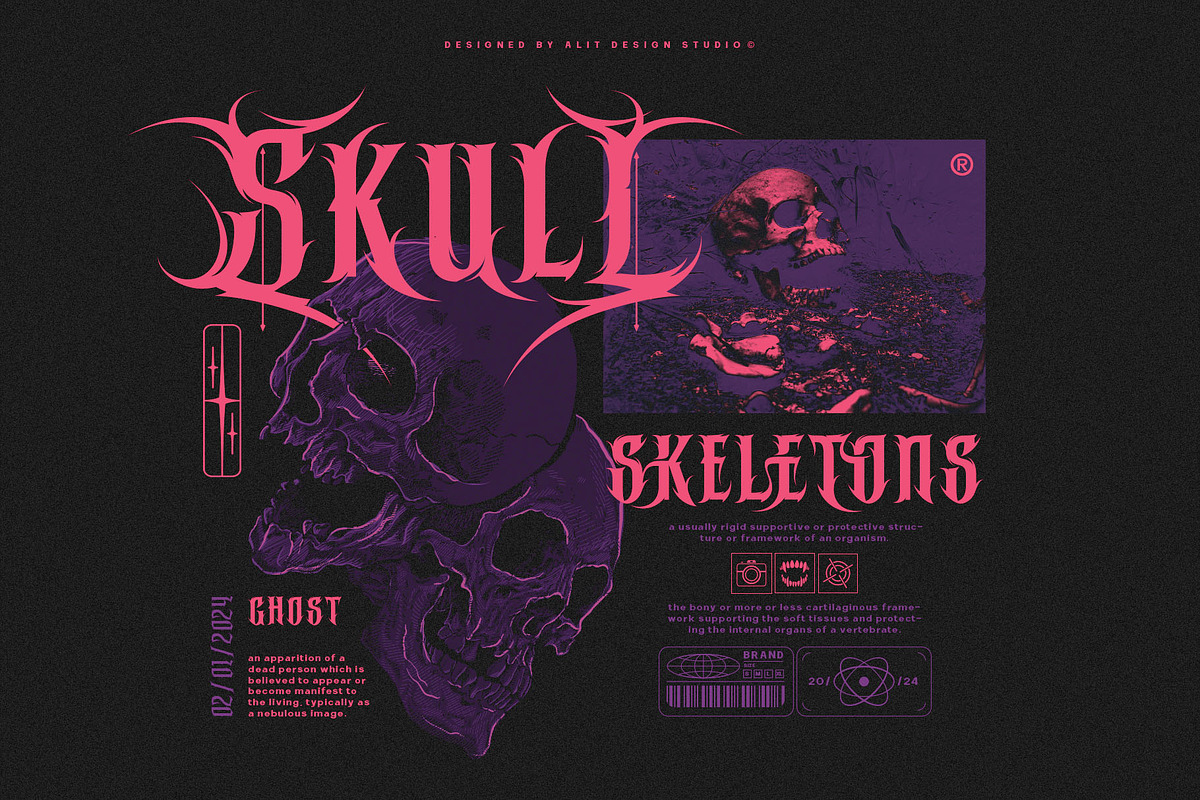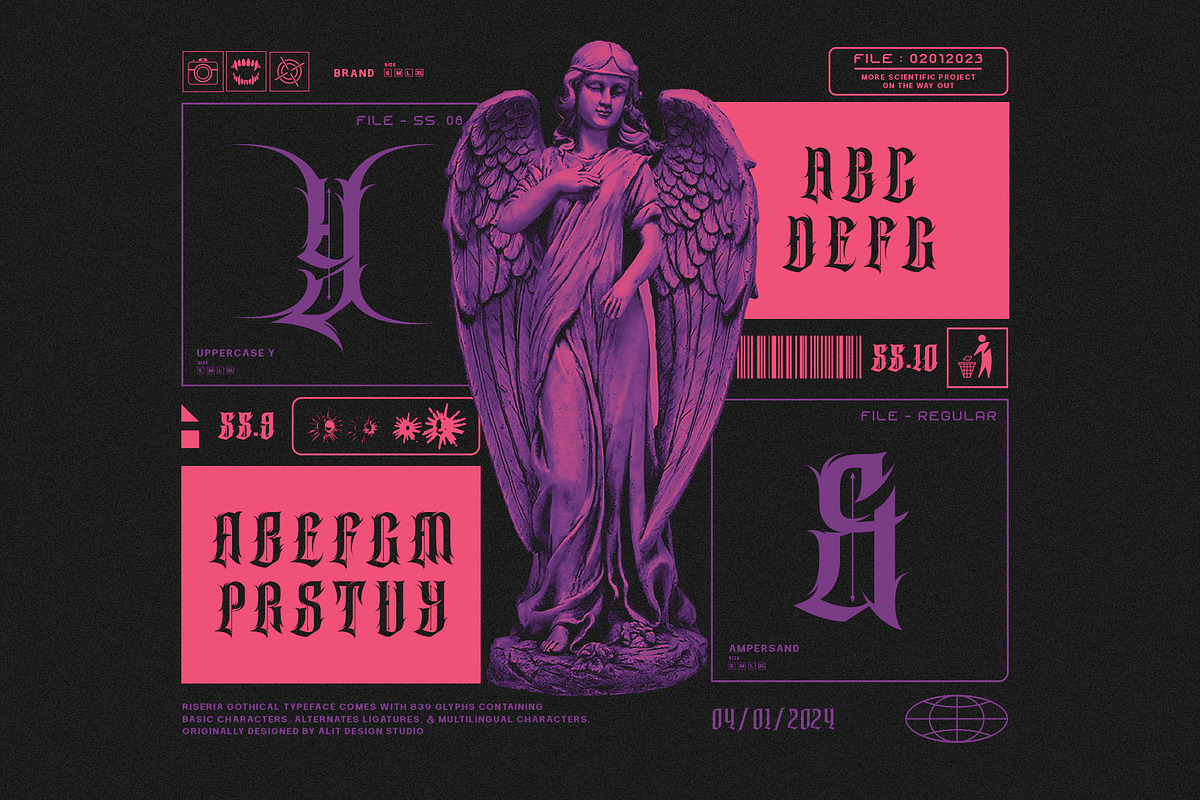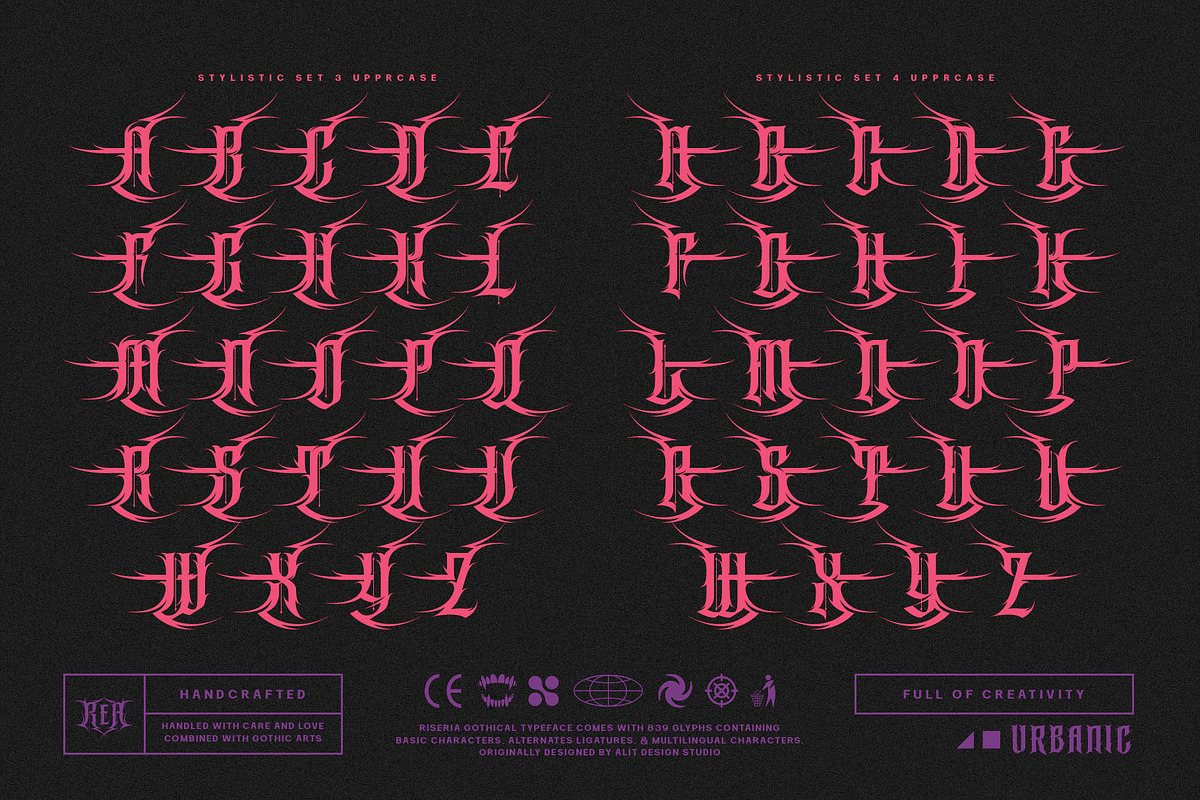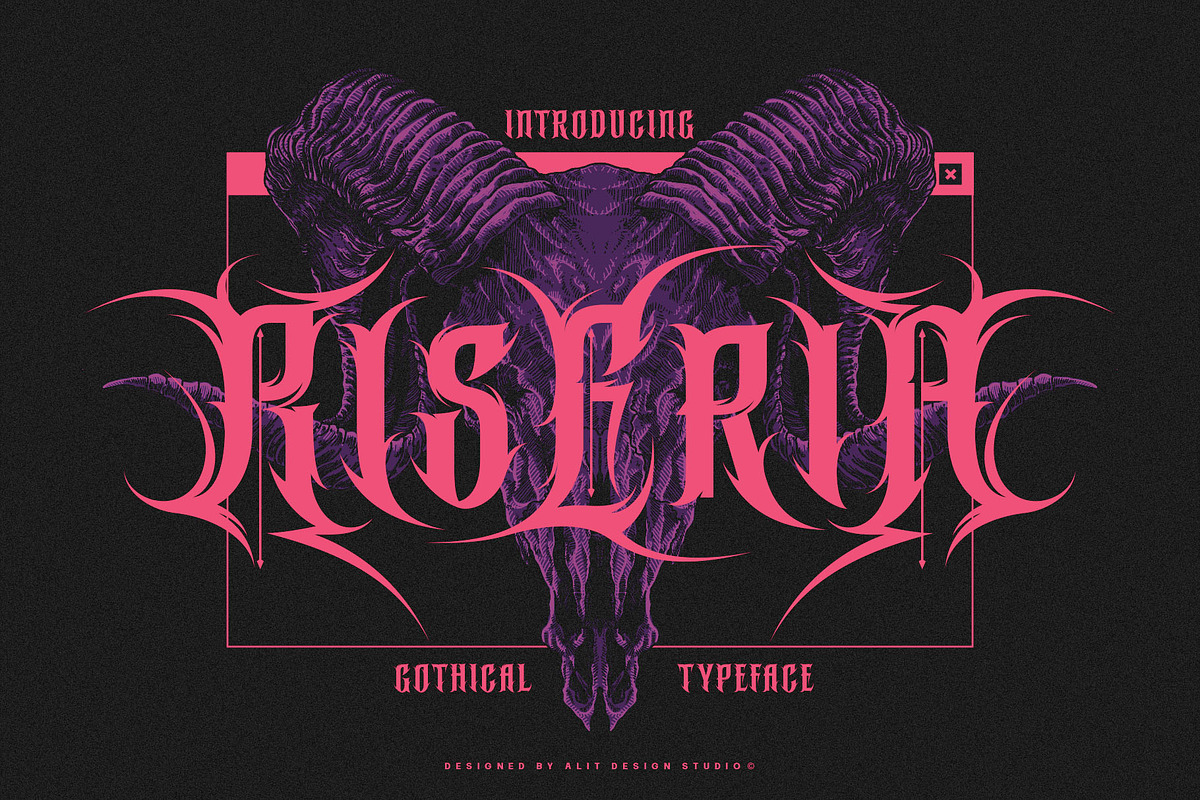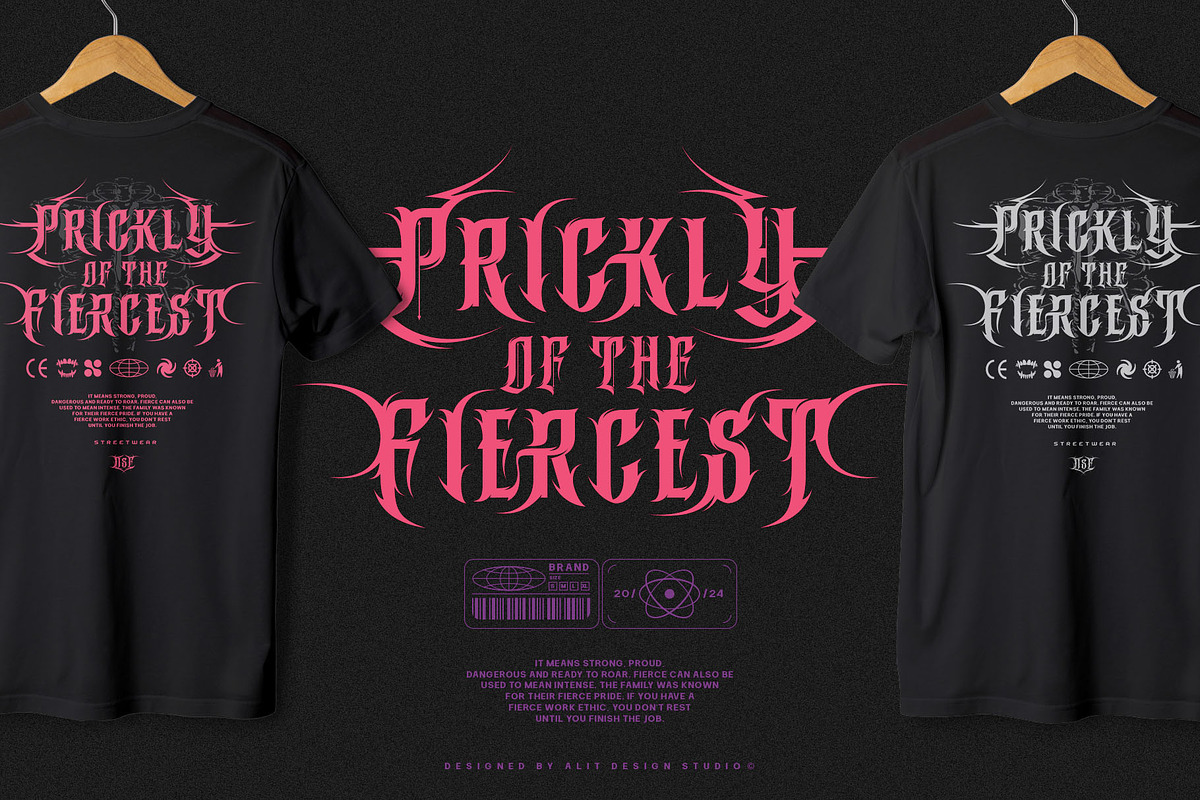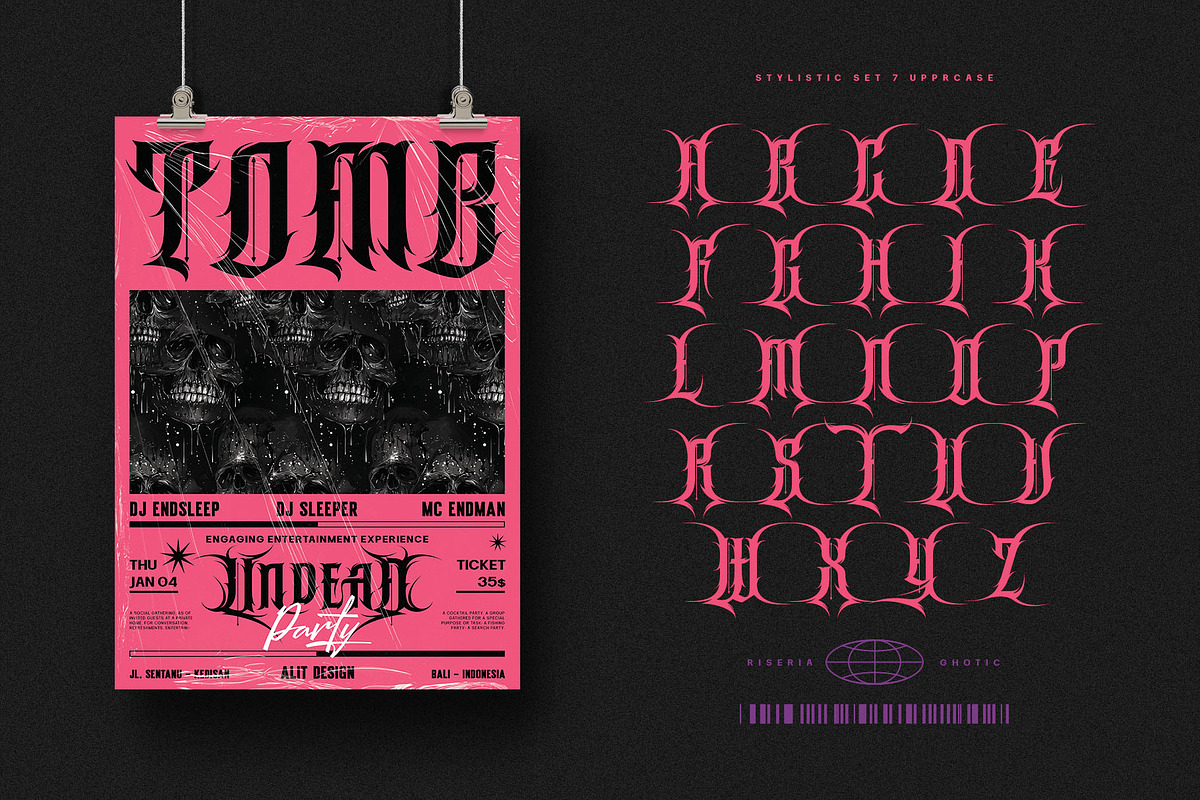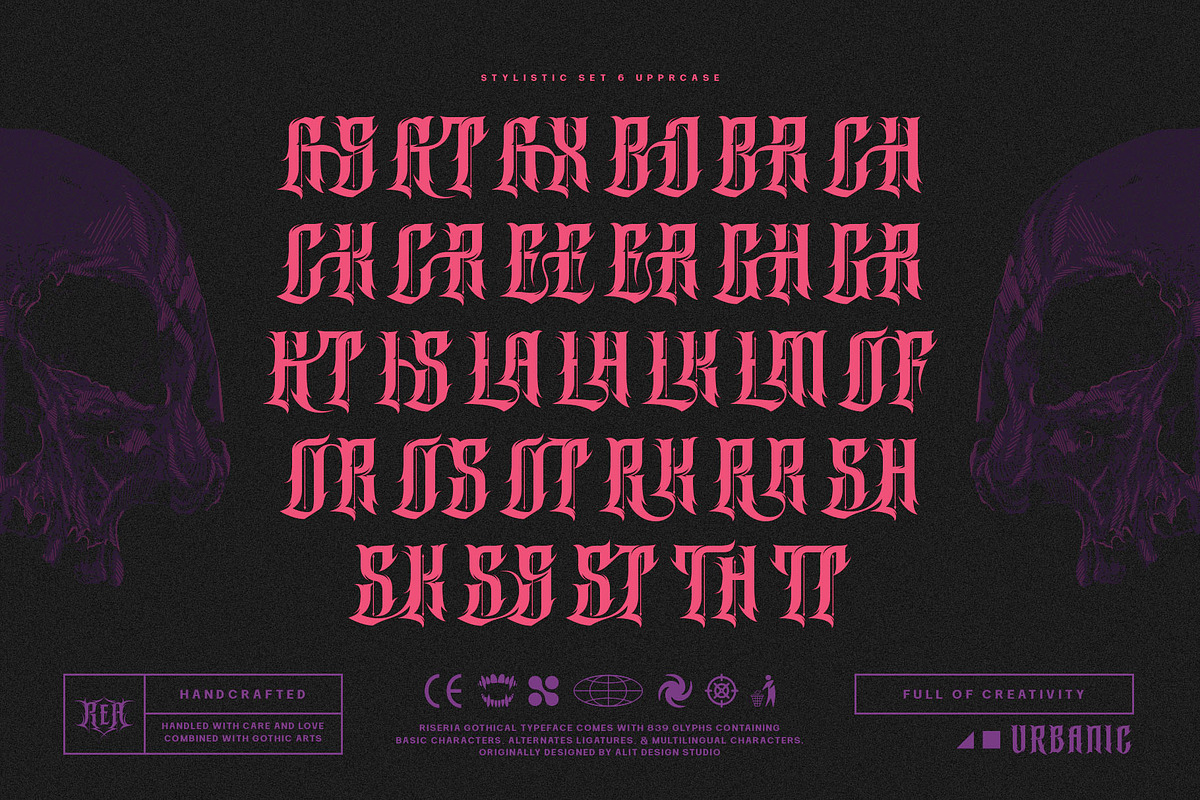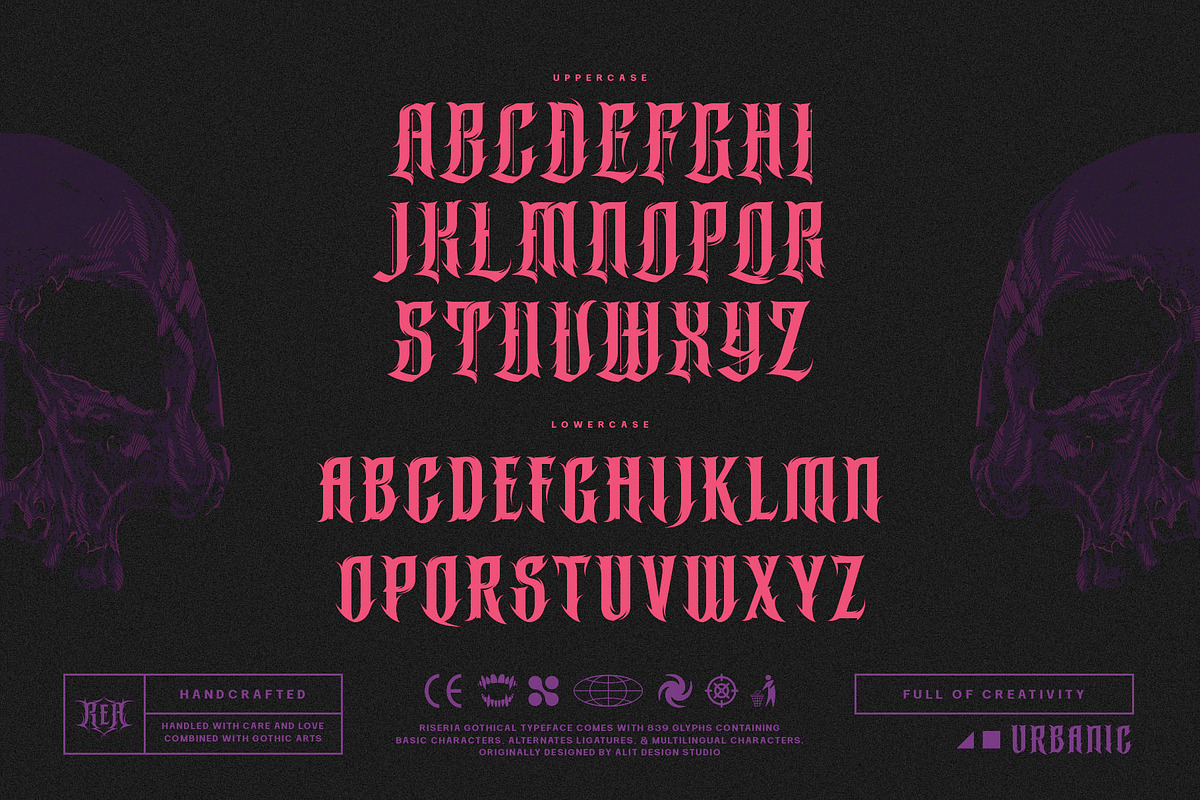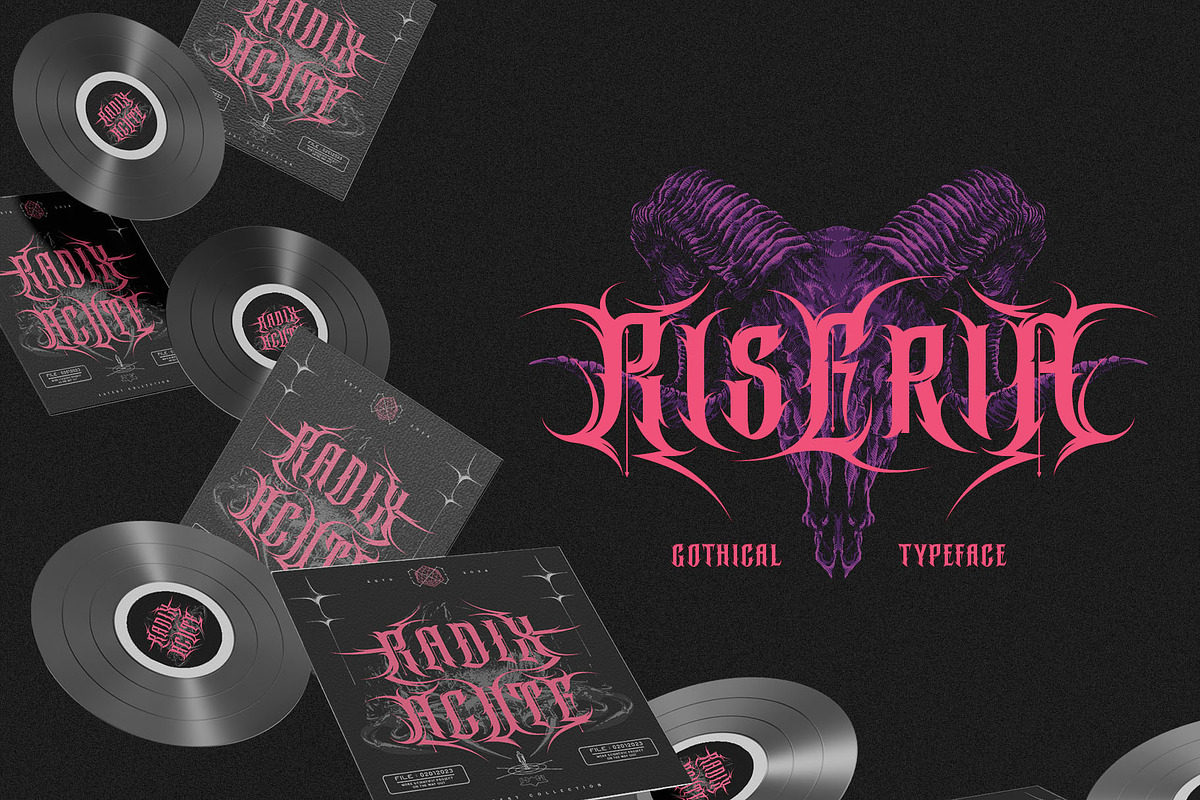
Riseria Typeface
Introducing "Riseria" – a bold and avant-garde typeface that seamlessly blends the raw power of brutalism metal with the intricate elegance of blackletter, enhanced by haunting thorn decorations. This font is a striking testament to the fusion of divergent design elements, resulting in a visually arresting and unique typographic experience.
With 839 meticulously crafted characters, Riseria stands as a versatile typeface that transcends conventional boundaries. Its design exudes an industrial and unapologetically bold aesthetic, drawing inspiration from the robustness of brutalist architecture and the mystique of blackletter scripts. The fusion of these elements creates a harmonious balance between strength and intricacy, making Riseria an ideal choice for projects that demand a powerful and visually captivating presence.
The font boasts a comprehensive set of ligatures, allowing characters to seamlessly merge and create a fluid and organic appearance. Alternatives provide additional flexibility, enabling users to experiment with different stylistic variations for a truly customized look. Riseria's multilingual support ensures its adaptability across a wide range of languages, making it a globally accessible and inclusive typographic tool.
One of the most distinctive features of Riseria is its spine-chilling thorn decorations. These frightening adornments add an element of darkness and mystique to the font, elevating it beyond mere letters and transforming it into a visceral and evocative design element. The thorns, intricately intertwined with the characters, create an otherworldly aura that is both mesmerizing and unsettling.
In essence, Riseria is not just a font – it's an artistic statement that pushes the boundaries of conventional typography. Whether used in branding, album covers, posters, or other design projects, Riseria is sure to leave an indelible mark with its brutalist metal aesthetics, blackletter charm, and spine-tingling thorn decorations.